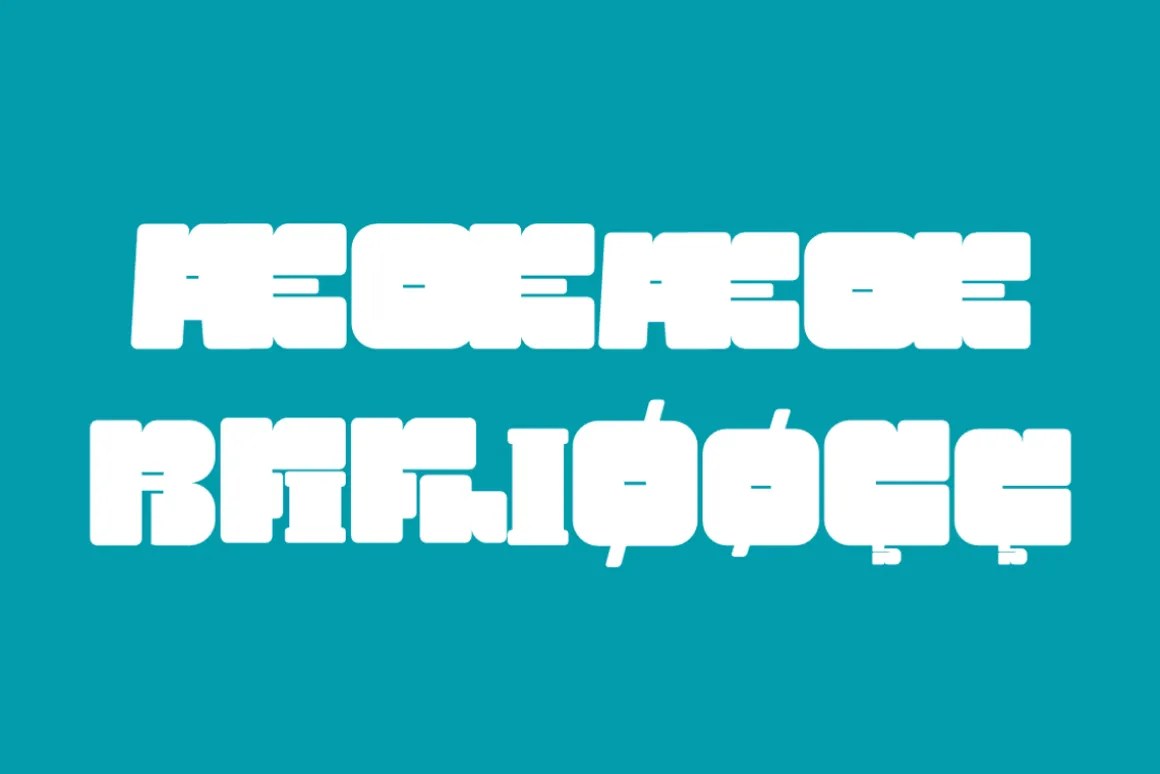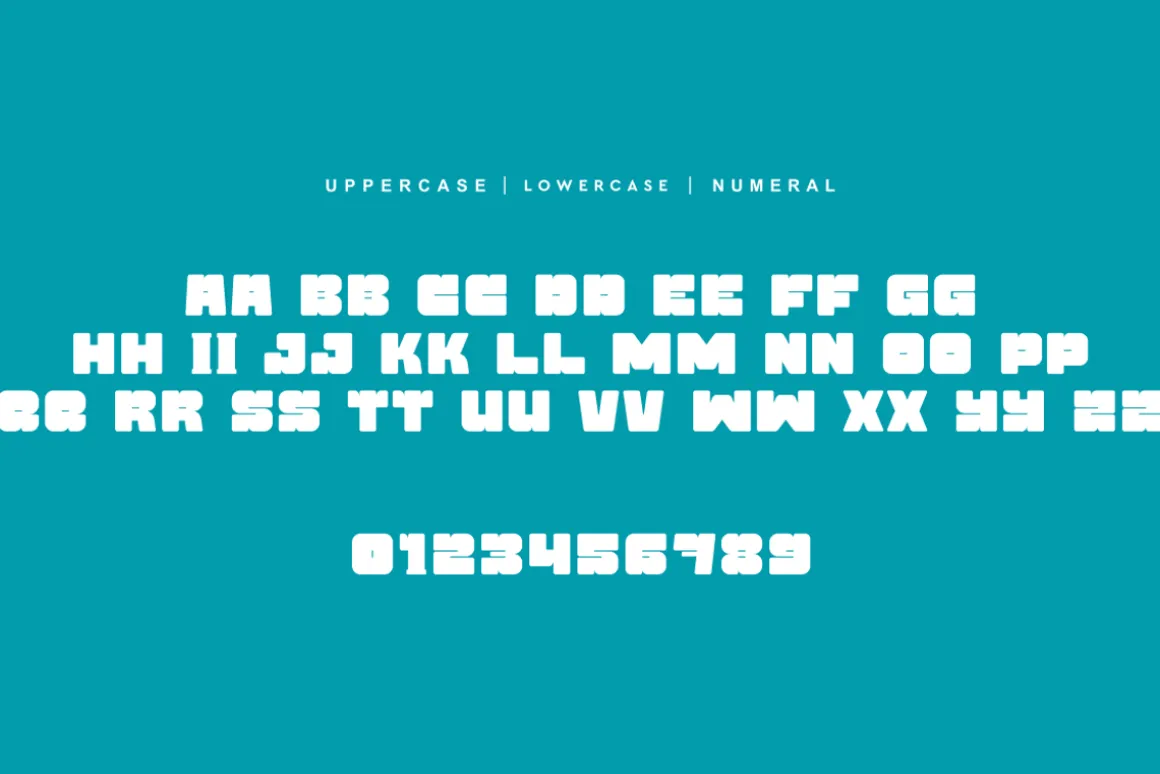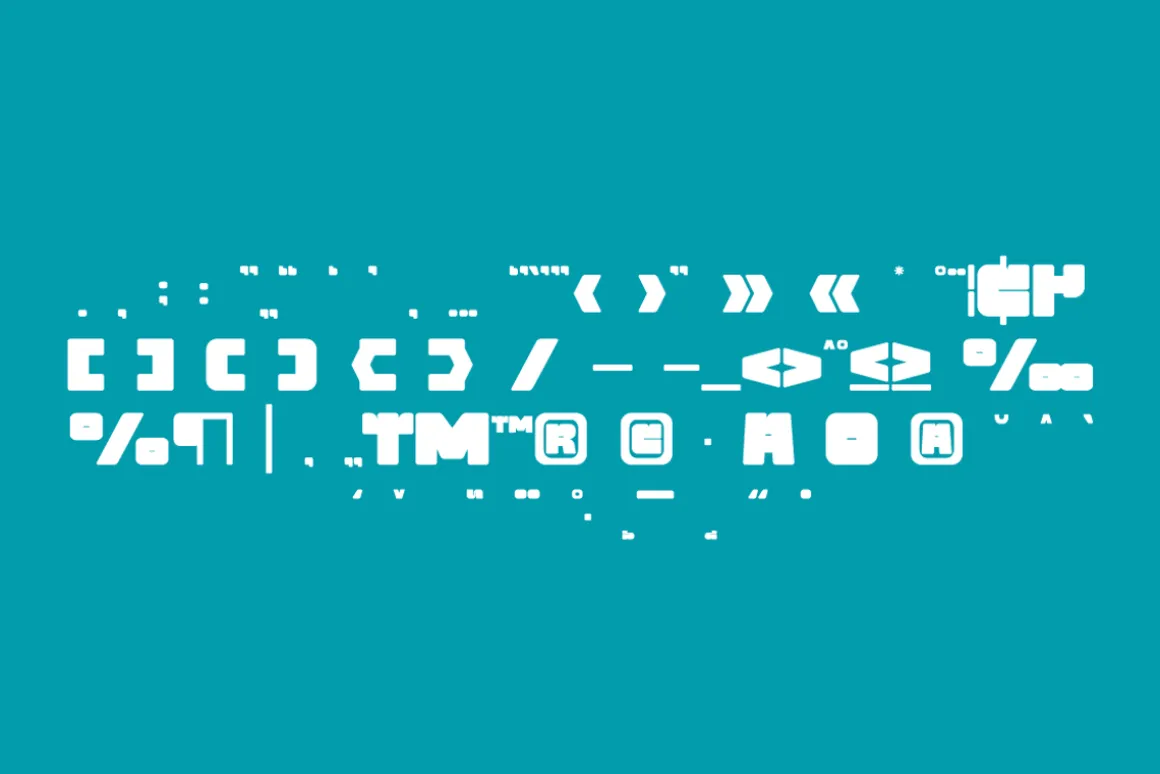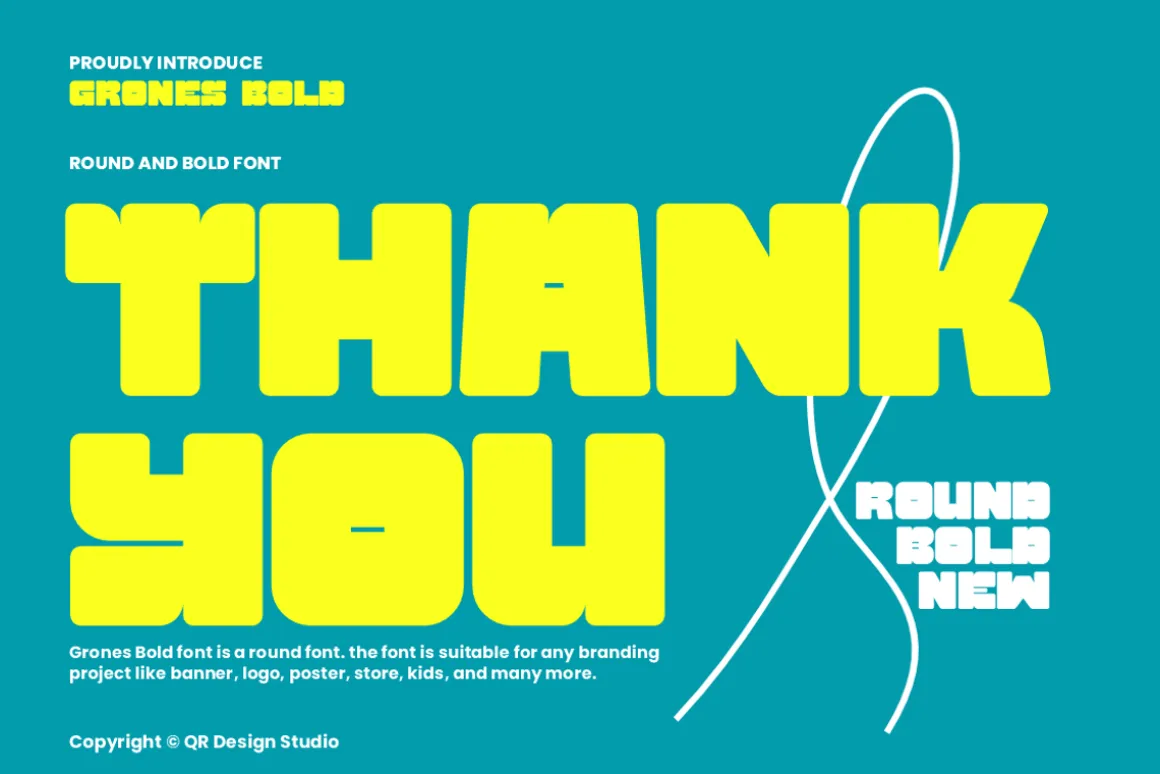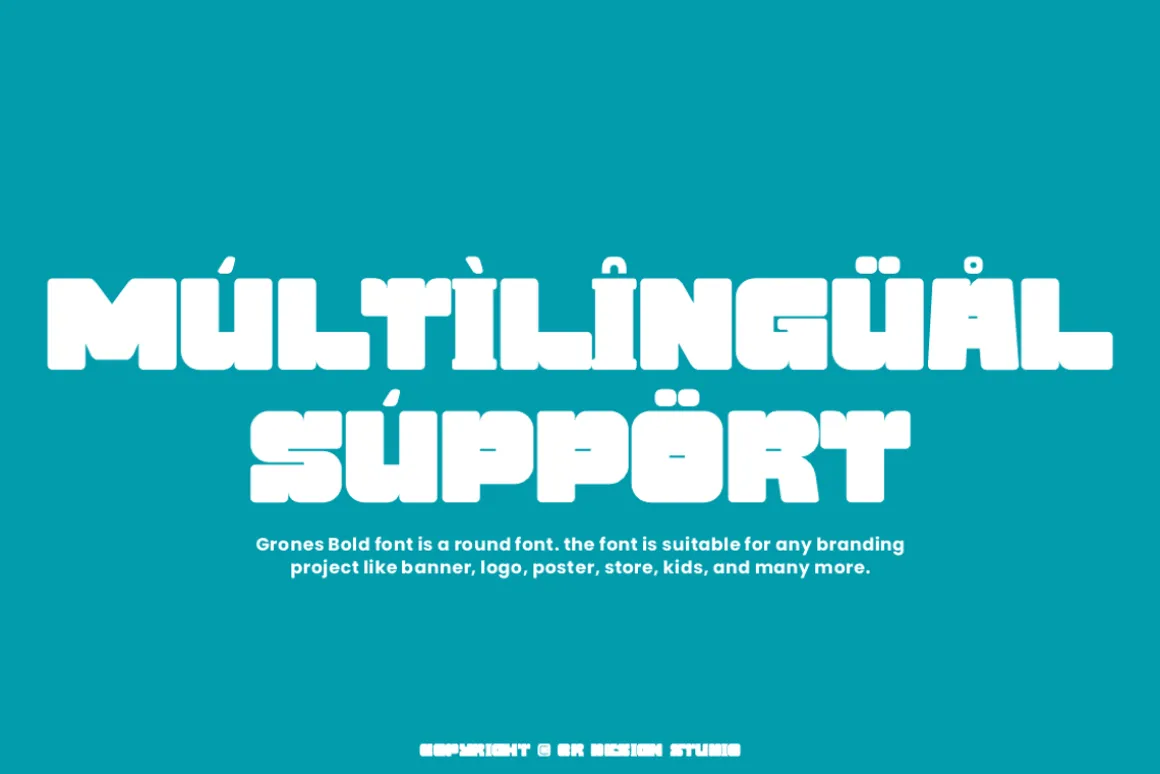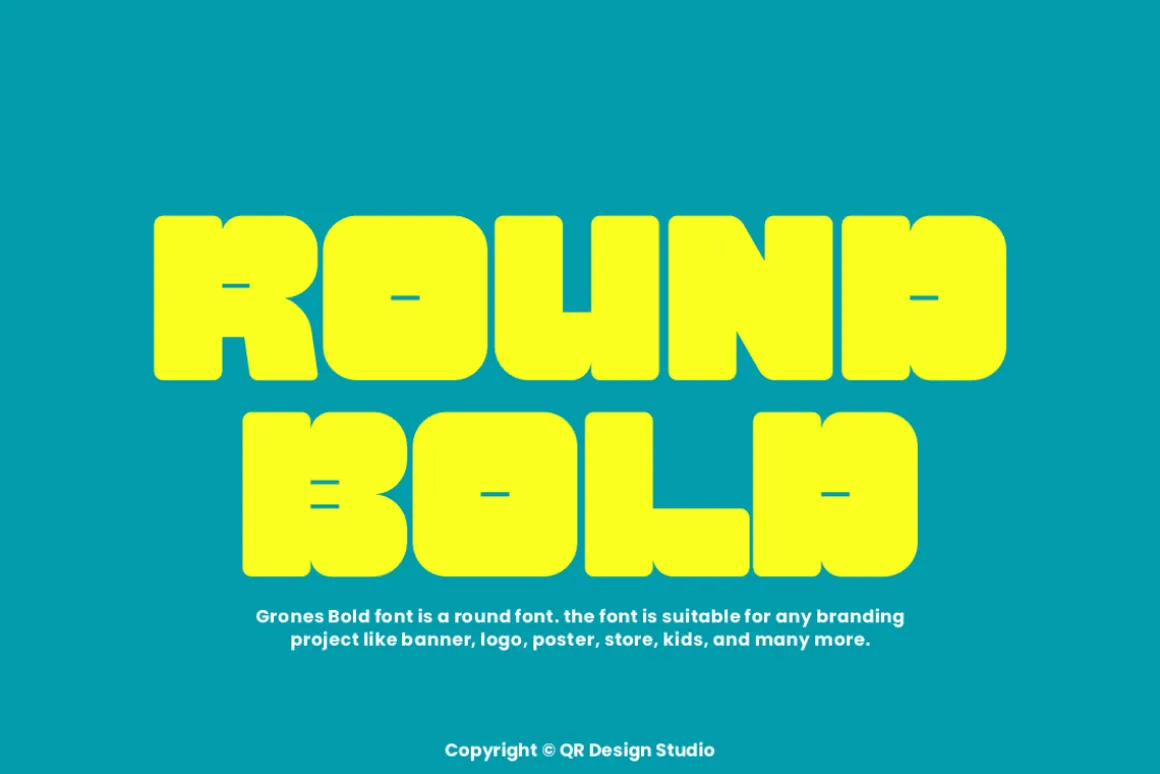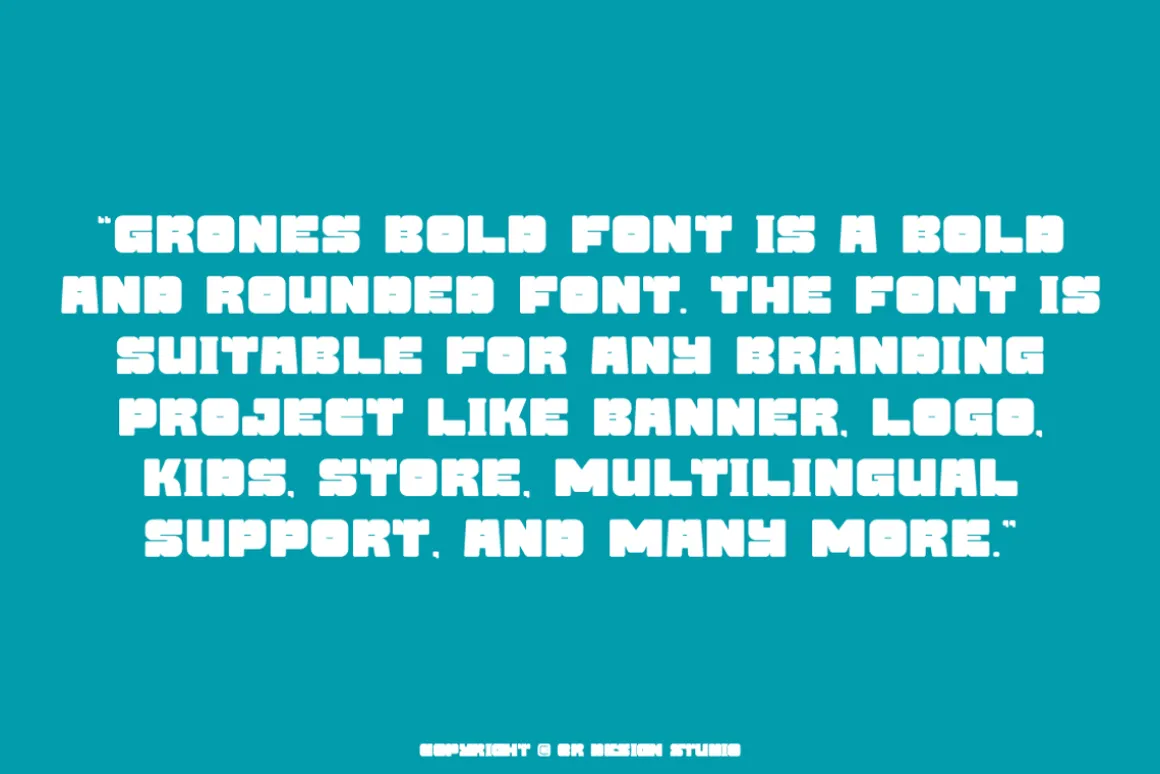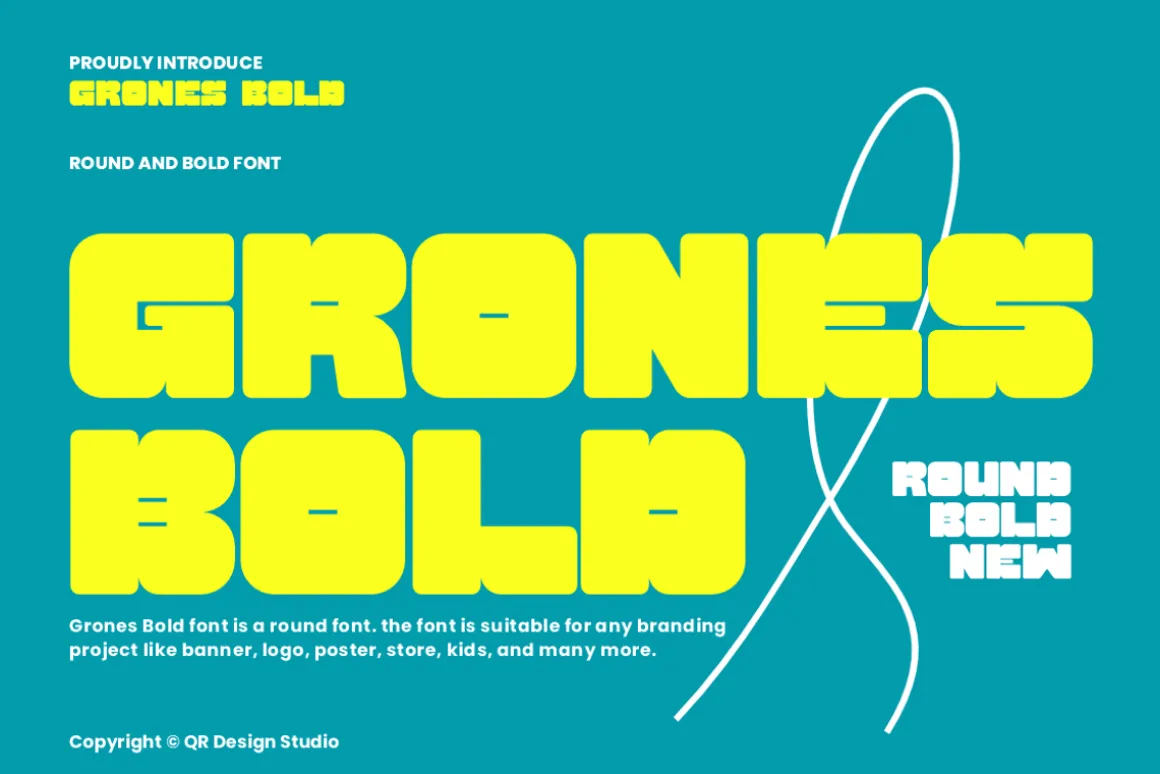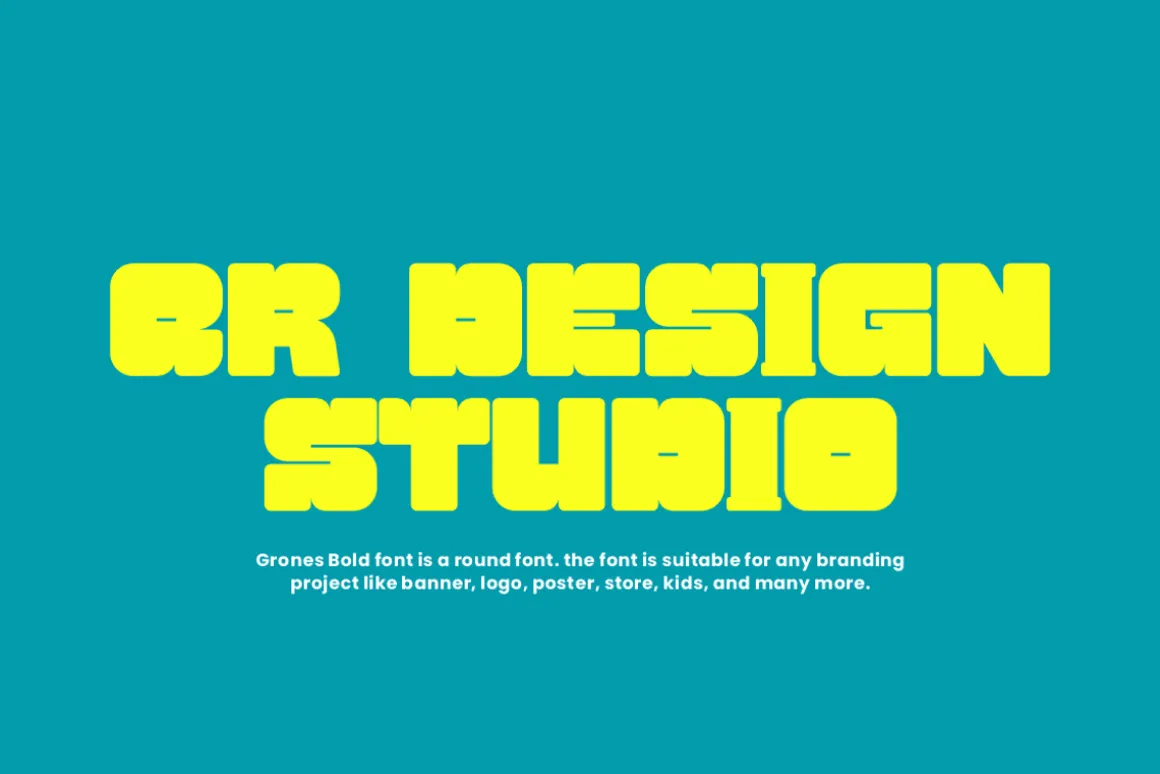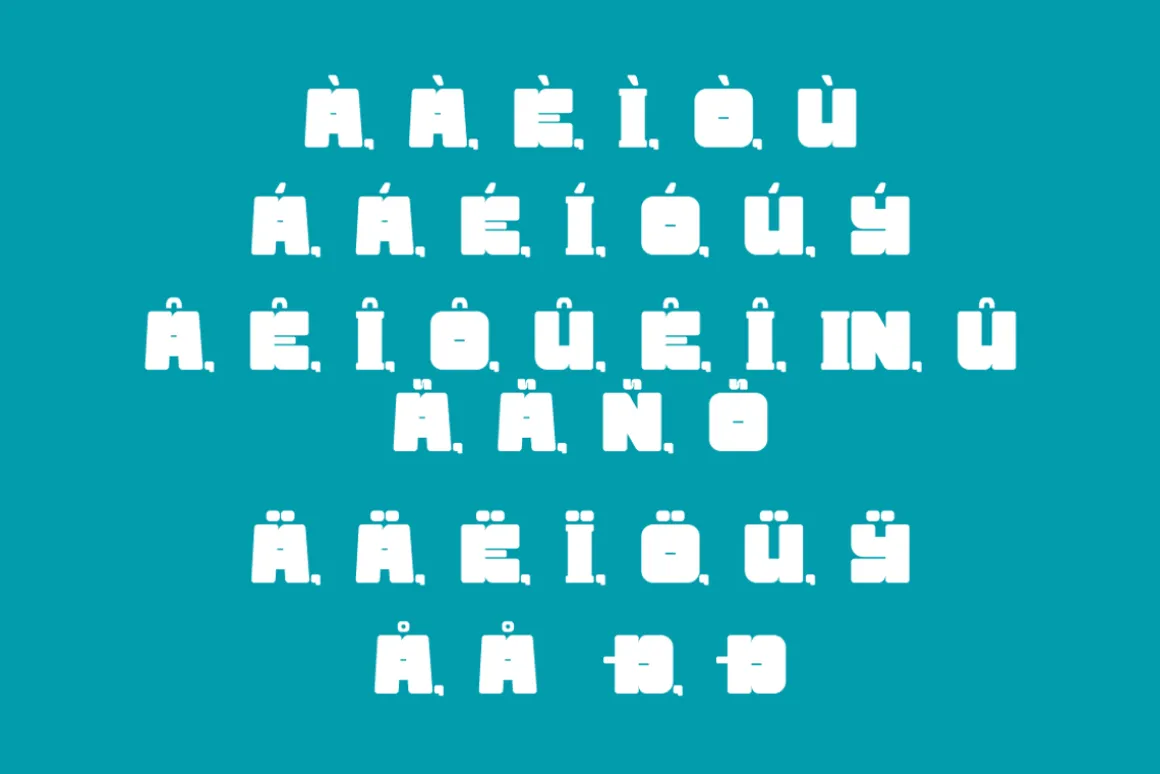
Grones Bold Font is a bold and authentic display font.The font is suitable for any branding project like poster, logo, kids, and many more.Outstanding in a wide range of contexts.